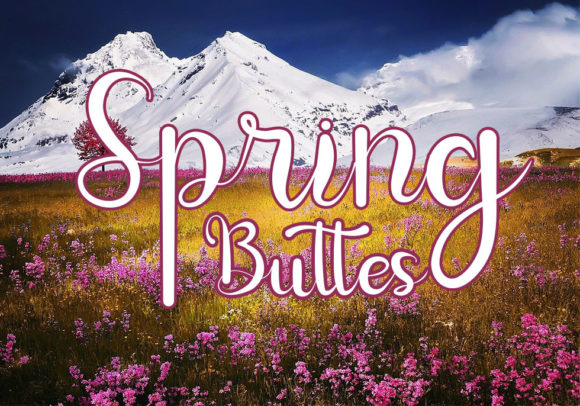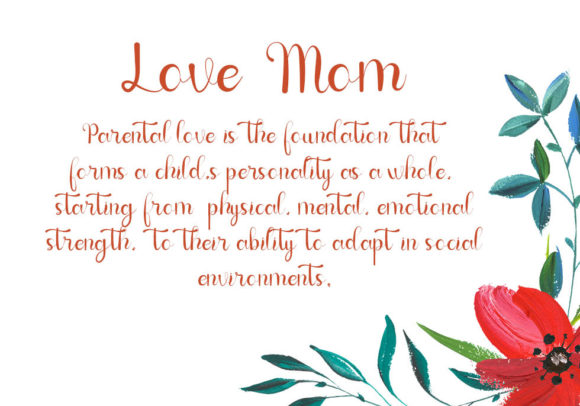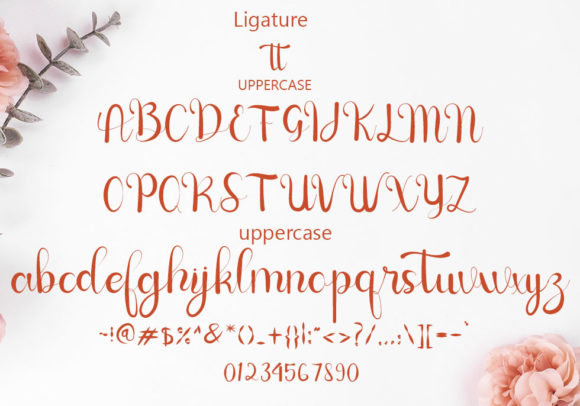
Introducing the Butterfly Font: A Relaxed, Cursive, and Delicate Script Font
The Butterfly Font is a stunning, hand-crafted script font that embodies elegance and sophistication. With its relaxed, cursive, and delicate strokes, this font is perfect for designers and crafters looking to add a touch of refinement to their creations. Whether you’re working on a branding project, a wedding invitation, or a digital product, the Butterfly Font is sure to elevate your design and leave a lasting impression.
What Makes the Butterfly Font So Special?
The Butterfly Font boasts an elegant flow that sets it apart from other script fonts. Its cursive strokes are smooth and fluid, creating a sense of movement and fluidity that’s perfect for conveying a sense of whimsy and playfulness. At the same time, the font’s delicate nature ensures that it remains refined and sophisticated, making it suitable for a wide range of applications.
Key Features of the Butterfly Font
- Relaxed and Cursive: The Butterfly Font features a relaxed, cursive style that’s perfect for creating flowing, organic designs.
- Delicate and Elegant: The font’s delicate strokes and elegant flow make it perfect for designs that require a touch of sophistication.
- Highly Versatile: The Butterfly Font can be used for a wide range of applications, from branding and advertising to wedding invitations and digital products.
- Easy to Read: Despite its delicate nature, the Butterfly Font is highly legible, making it perfect for body text and longer forms of content.
How to Use the Butterfly Font in Your Designs
The Butterfly Font is incredibly versatile, and can be used in a variety of ways to elevate your designs. Here are a few ideas to get you started:
- Branding and Advertising: Use the Butterfly Font to create elegant and sophisticated brand identities that stand out from the crowd.
- Wedding Invitations: The Butterfly Font is perfect for wedding invitations, adding a touch of romance and whimsy to your designs.
- Digital Products: Use the Butterfly Font to create beautiful and engaging digital products, such as e-books, workbooks, and more.
- Signage and Display: The Butterfly Font is perfect for signage and display applications, adding a touch of elegance and sophistication to your designs.
Tips for Pairing the Butterfly Font with Other Fonts
Pairing the Butterfly Font with other fonts can be a great way to add contrast and visual interest to your designs. Here are a few tips to keep in mind:
- Pair with a Bold Font: Pair the Butterfly Font with a bold, sans-serif font to create a striking contrast that adds visual interest to your design.
- Use a Neutral Font: Pair the Butterfly Font with a neutral font, such as a simple serif or sans-serif font, to create a clean and elegant design.
- Experiment with Script Fonts: Don’t be afraid to pair the Butterfly Font with other script fonts to create a unique and eye-catching design.
The Butterfly Font is a stunning, hand-crafted script font that’s perfect for designers and crafters looking to add a touch of elegance and sophistication to their creations. With its relaxed, cursive, and delicate strokes, this font is highly versatile and can be used for a wide range of applications. Whether you’re working on a branding project, a wedding invitation, or a digital product, the Butterfly Font is sure to elevate your design and leave a lasting impression.